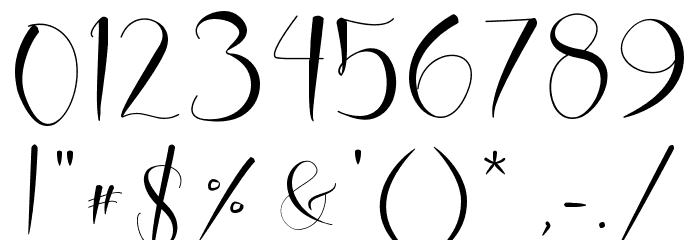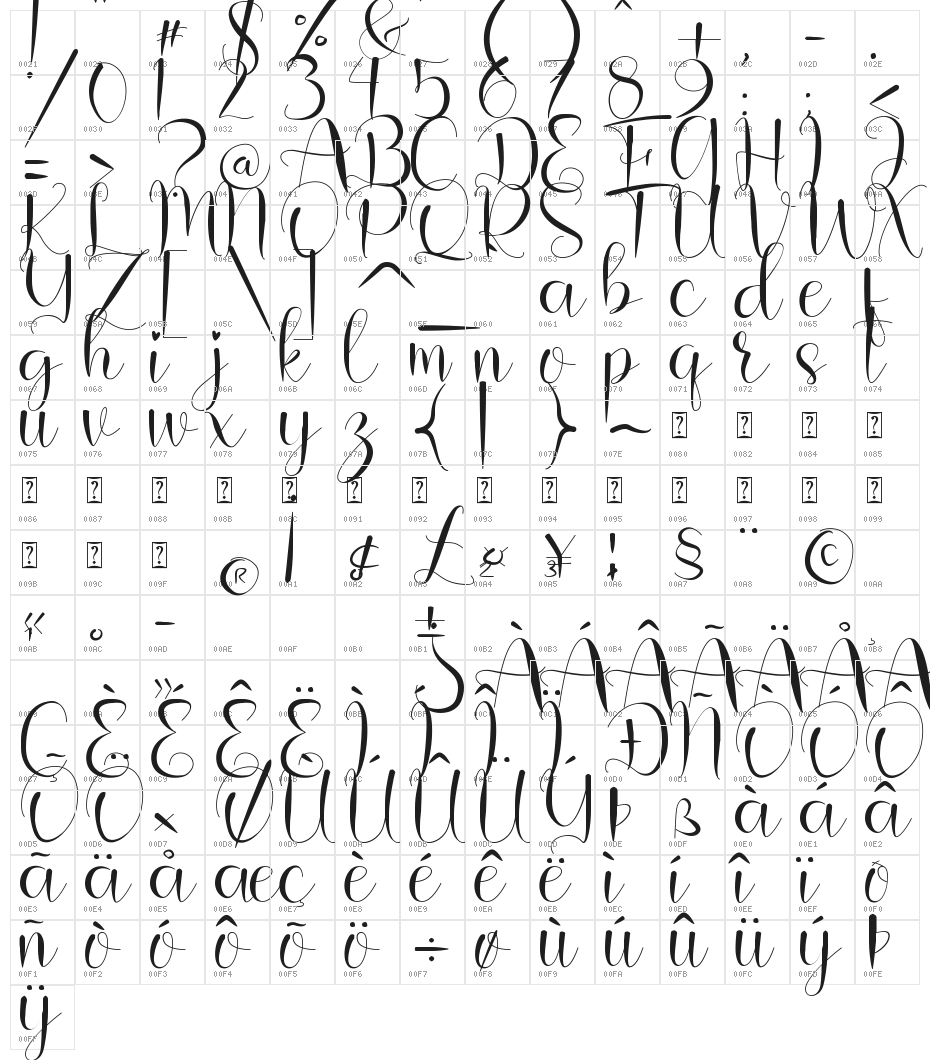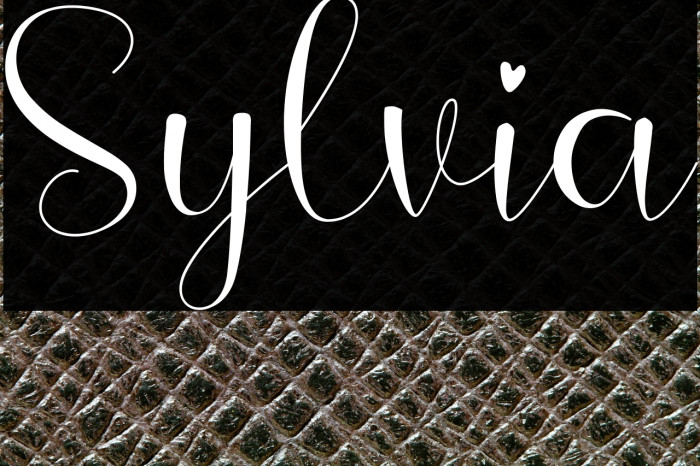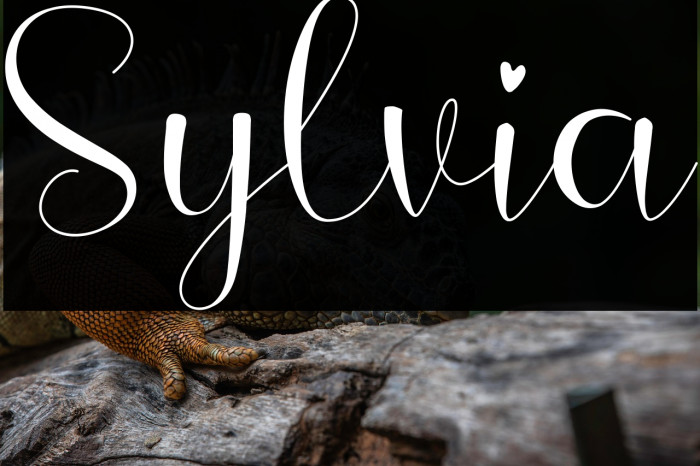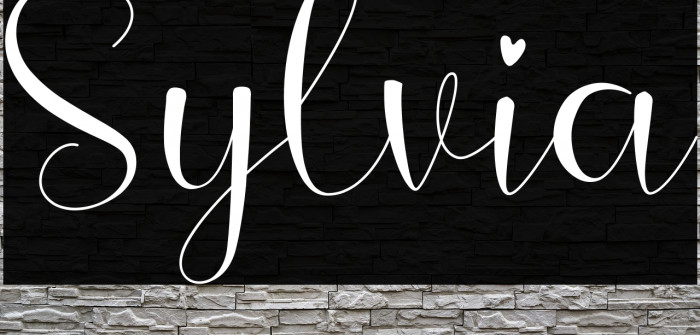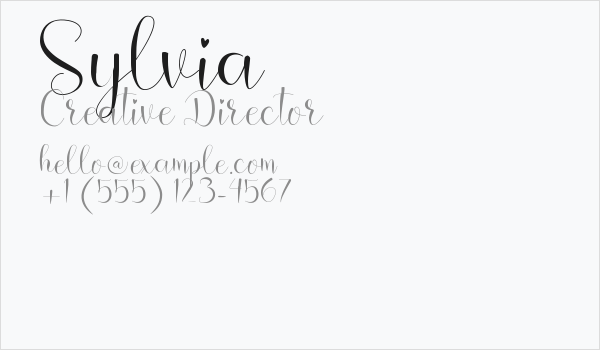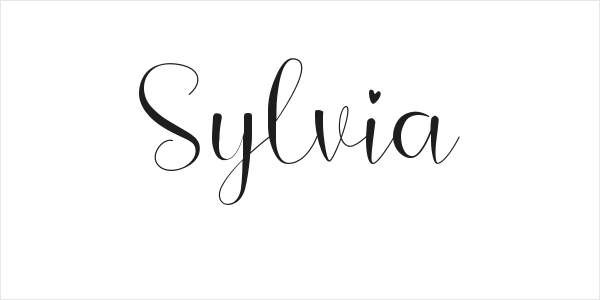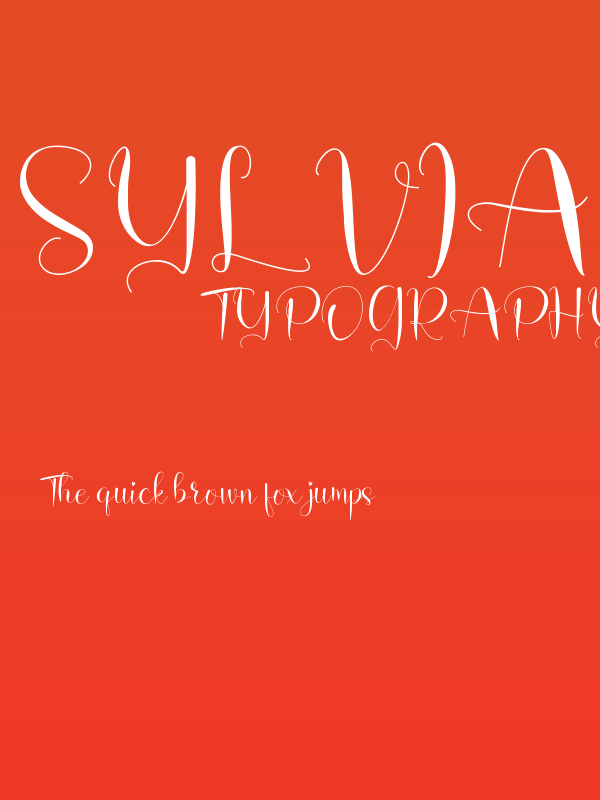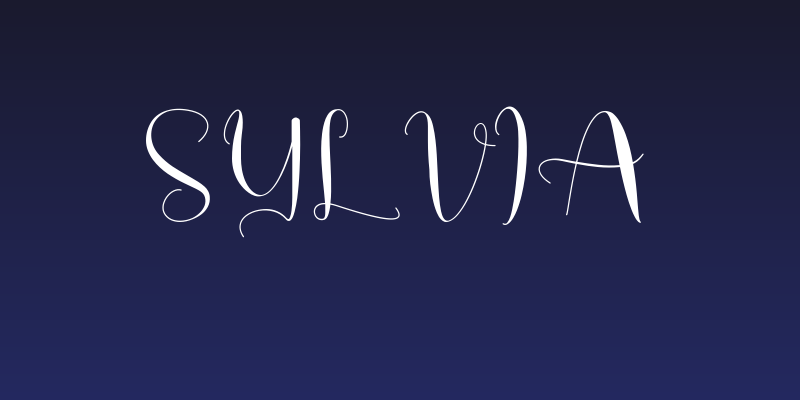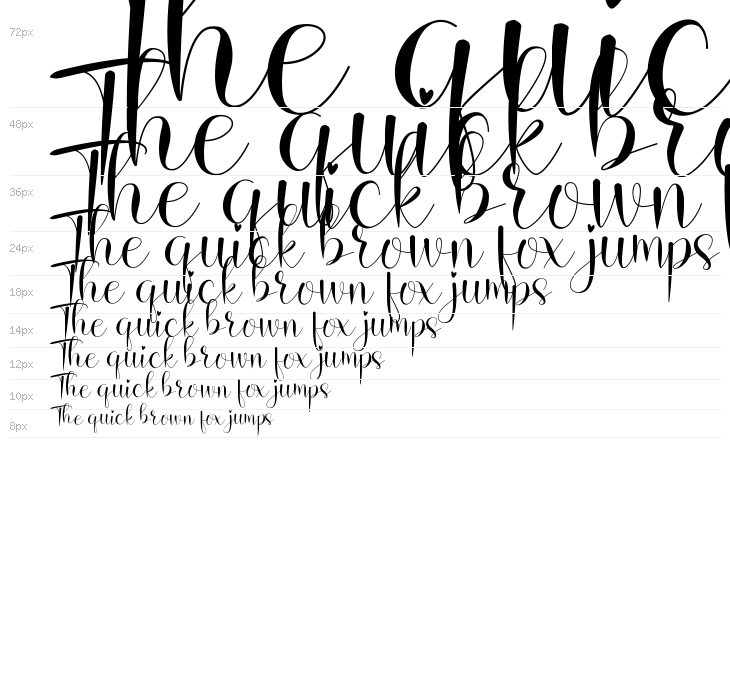
Sylvia Font
Sylvia Description
This font features an elegant and flowing script style, characterized by its graceful curves and delicate strokes. The uppercase letters are tall and slender, with a distinctive flair that adds a touch of sophistication. The lowercase letters maintain a consistent flow, with some characters extending below the baseline, enhancing the font's fluidity. The numerals are uniquely styled, matching the overall aesthetic with their curvaceous forms. Special characters are thoughtfully designed, integrating seamlessly with the rest of the typeface. This font exudes a sense of elegance and charm, making it suitable for a variety of creative applications.
| Proposed Projects | Ideal for wedding invitations, elegant branding, greeting cards, and upscale packaging. |